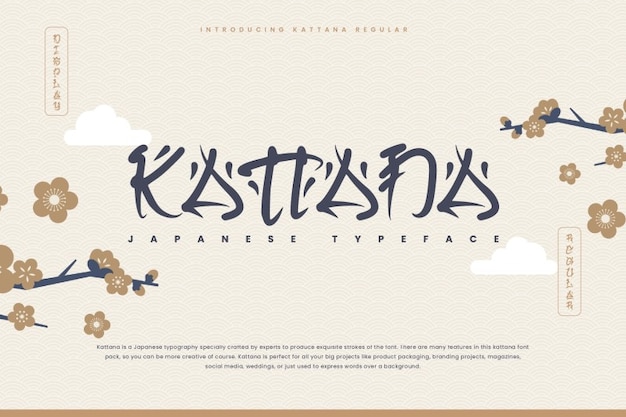
Kattana Font
Kattana is like a calligraphy brush in the hands of a skilled Japanese artist. It's a font that beautifully merges the artistry of Japanese writing with a creative twist. The characters flow with a grace that's reminiscent of traditional calligraphy, yet they're infused with a modern, artistic energy. Each letter is a brushstroke, telling a story that's both timeless and contemporary. Whether you're working on a design project inspired by the rich culture of Japan or just want a font that exudes creativity, Kattana brings a touch of the East to your creative endeavors. It's like a beautiful haiku in the world of typography.